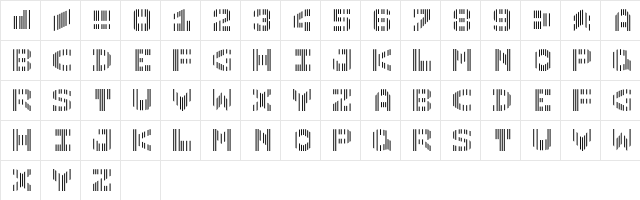
LTCmc Seven Normal
Design Context for LTCmc Seven Typeface
LTCmc Seven is a composed and adaptable typeface that performs quietly and consistently across a wide range of design contexts.